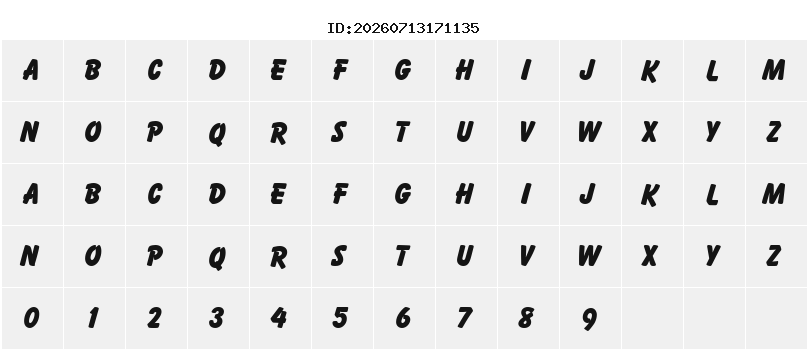
• Font Name: Balloon Becker Poster Ext Bold
Balloon Becker Poster Ext Bold.ttf is a modern, elegant sans-serif font designed for ultimate readability and visual harmony. Perfect for branding, headlines, web design, and print materials.